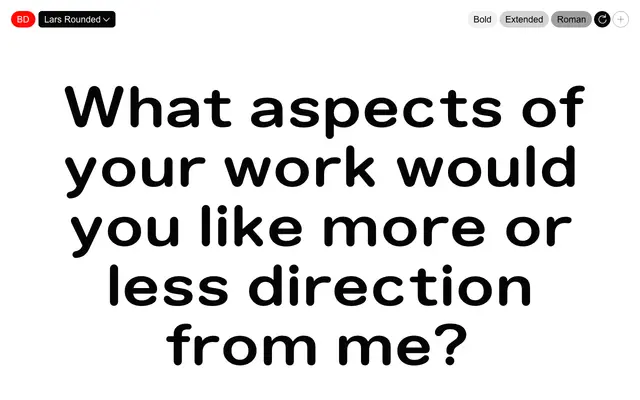
Lars Rounded
A rounded, extended sans-serif from Bold Decisions, offering a soft geometric character suited to display and branding use.
Lars Rounded is an extended rounded sans from Bold Decisions, built around soft terminals that give it a friendly, open quality distinct from more utilitarian grotesques. The extended width positions it for headlines, packaging and identity work where generous spacing is an asset. Page content is sparse, so precise weight range and language coverage remain unclear from available data.
The name and foundry URL path confirm a rounded variant of a sans-serif typeface; rounded terminals are the defining subcategory trait.